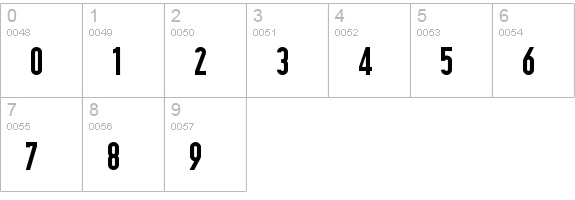
[z] Prozak Bold Font Details
Introducing [z] Prozak Bold font, the epitome of modern sophistication and bold elegance. This dynamic typeface exudes a powerful presence with its sharp angles and sleek lines, making it perfect for creating eye-catching designs that demand attention. The [z] Prozak Bold font is versatile and can be used for a wide range of projects, from branding to editorial design. What sets this font apart is not only its striking appearance but also the fact that it is completely free to download. Yes, you heard that right - you can elevate your design game with the [z] Prozak Bold font without spending a dime. Simply head over to FontsMarket.com and get your hands on this stunning typeface today. Whether you're working on a poster, logo, website, or any other creative project, the [z] Prozak Bold font will help you make a bold statement and stand out from the crowd. Embrace the power of free design resources and unleash your creativity with this exceptional font. Download [z] Prozak Bold now and let your designs shine like never before.